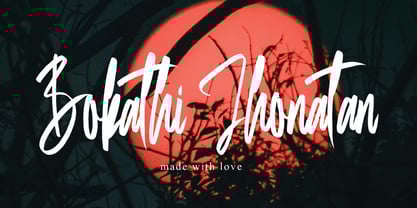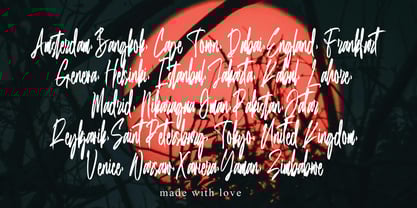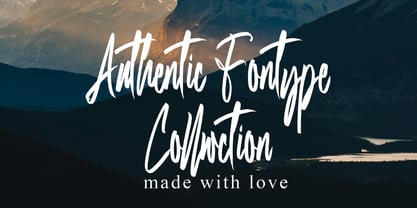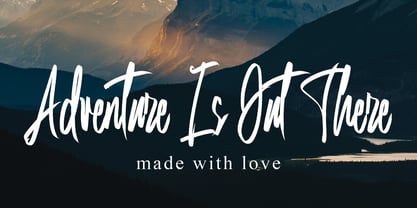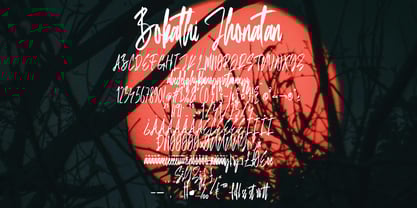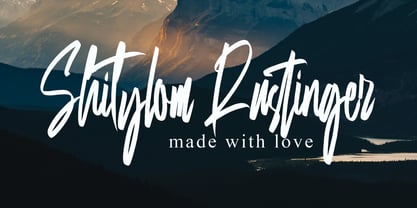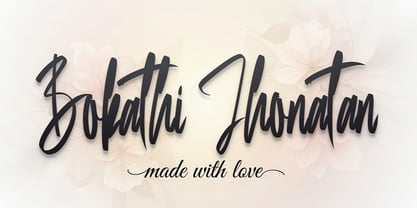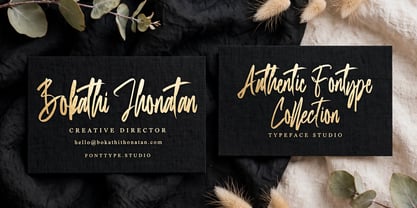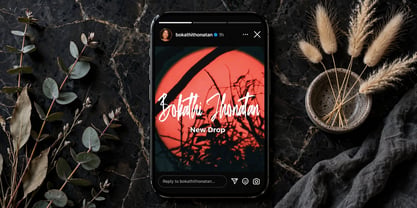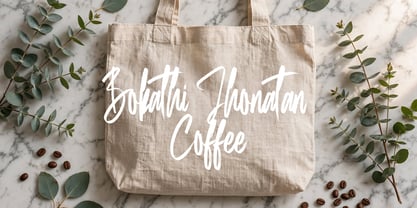
Bokathi Jhonathan
by Ayska
The Bokathi Jhonathan Font Family was designed by Dhoni Trihatmoko and published by Ayska. Bokathi Jhonathan contains 1 styles.
Discover Bokathi Jhonathan - a captivating interweaving of contemporary flair and vintage elegance of handwritten letters. Created with painstaking attention to detail, this unique font exudes a sophisticated aura that adds a touch of panache to any digital project. Bokathi Jhonathan captivates your blog readers, infuses personality into your digital planner, personalizes your invitations, and adds deep sentiment to your greeting cards with its distinct charm. Revel in the ageless beauty and innovative mastery of Bokathi Jhonathan, enhancing your photo albums or tailored decor. Employ its transformative property to convert ordinary visuals into spellbinding artwork and lend a magical hand to your digital creations. Embrace the allure of Bokathi Jhonathan, an artistic helm orienting you to produce unforgettable masterpieces. Immerse yourself in the inspiring realm of Bokathi Jhonathan, letting your artistic instincts blossom into refined pieces of digital art.
Designers: Dhoni Trihatmoko
Publisher: Ayska
Foundry: Ayska
Design Owner: Ayska